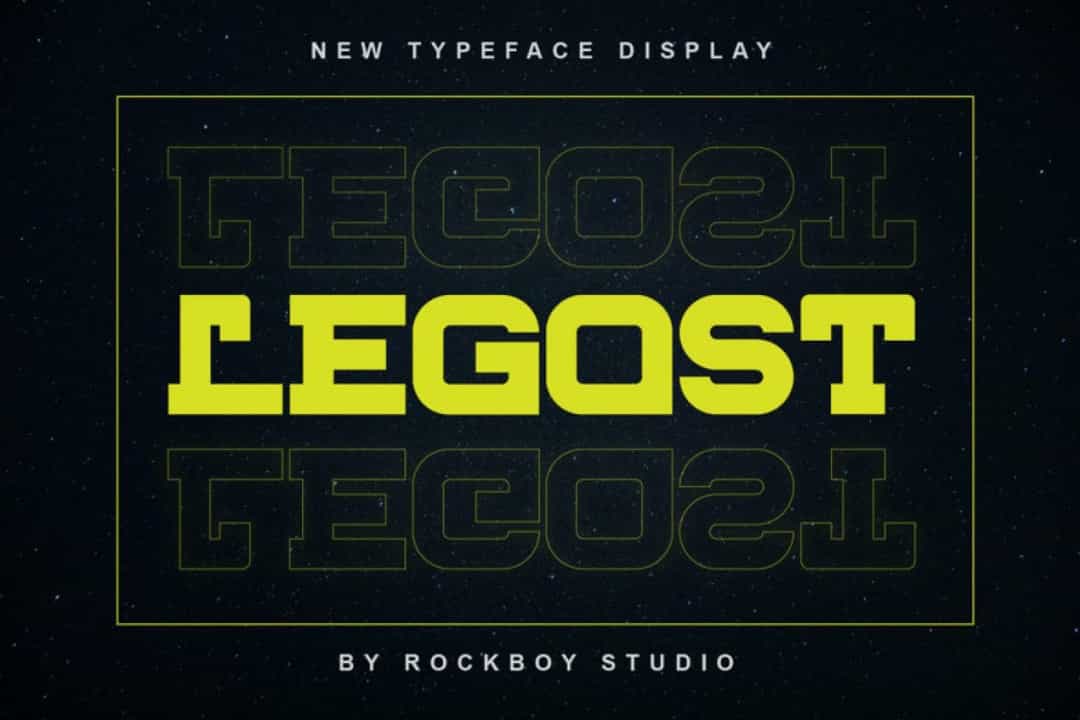
Legost is an eye-catching brand serif font. It can easily adapt to various concepts and ideas, so consider including it when brainstorming creative projects – and watch how they stand out!